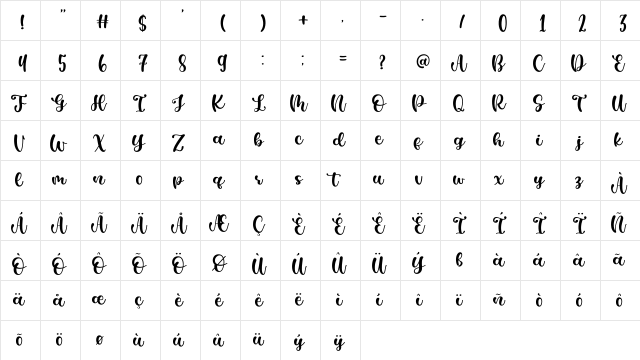
Casking Cream Script Regular
Design Context for Casking Cream Script Typeface
Casking Cream Script brings a calligraphic fluidity to the page — its connecting strokes and expressive curves give it an unmistakably human quality.
Font Pairing: Combine Casking Cream Script with a simple geometric sans for maximum contrast — the tension between flowing curves and clean structure is a classic typographic pairing.
Pro Tip: Pair Casking Cream Script with a clean sans-serif for supporting text. The contrast between fluid script and geometric structure creates an elegant typographic hierarchy.